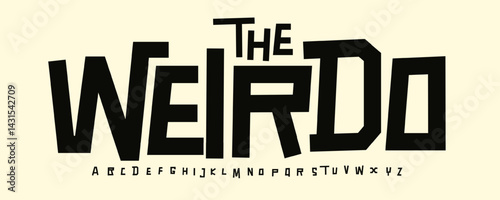
Weirdo Font, Bold Weird Letters, Witty Stubby Typeface for Indie Art Style, Spooky Poster, Alternative Logo and Headline. Creative Odd Typographic Design, DIY typography. Vector typeset